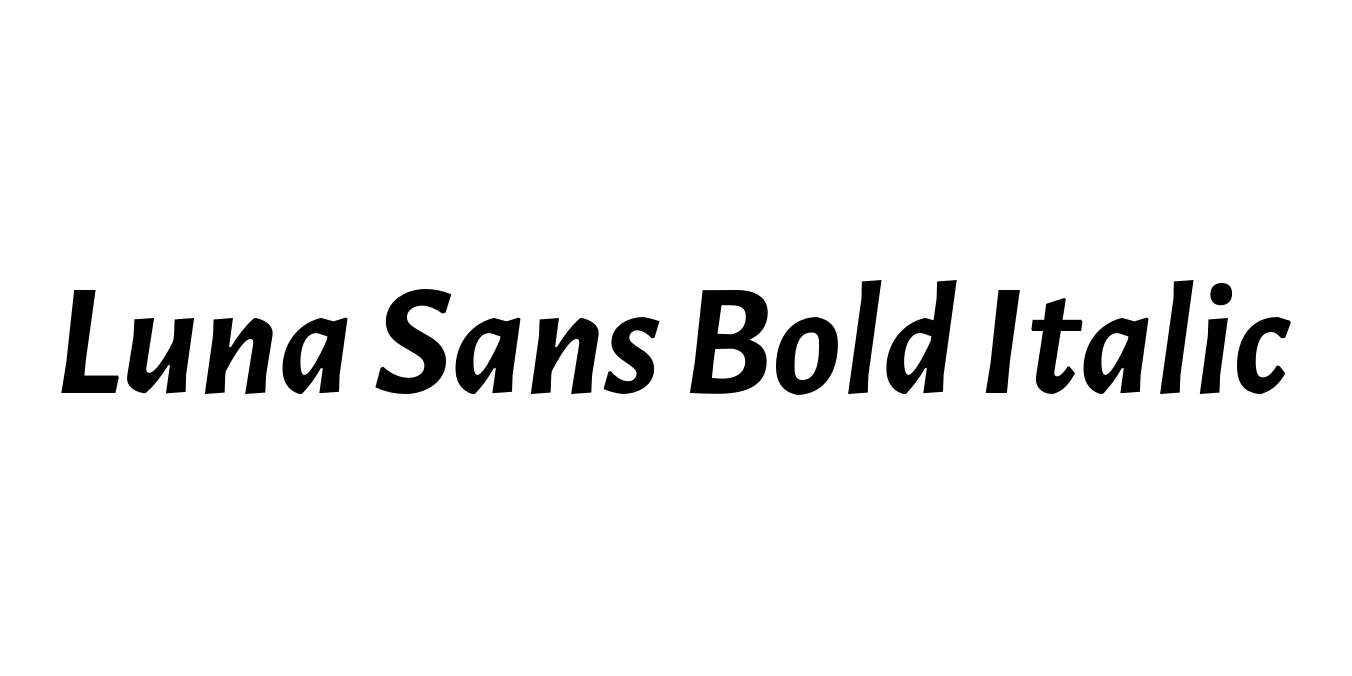
Luna Sans Bold Italic
Designed by Amanda de Lacerda
Luna Sans Bold Italic is a sophisticated geometric sans-serif typeface that bridges the gap between modern minimalism and functional clarity. Designed as part of the broader Luna family, this specific weight and style was crafted to provide designers with a tool for creating high-impact visual hierarchies. The bold italic variation is particularly noted for its sleek, forward-leaning stance that conveys a sense of momentum and confidence, making it a favorite for contemporary digital environments.
Technically, Luna Sans is characterized by its balanced x-height and open apertures, which ensure maximum legibility even at smaller display sizes. The bold italic weight manages to maintain these clean proportions while adding a layer of emphasis and urgency. It is frequently utilized in high-end branding, editorial layouts, and advertising campaigns where a professional yet approachable tone is required to capture the audience's attention effectively.
Luna Sans Bold Italic Best Uses
Perfect for high-impact titles and section headers that require emphasis.
Ideal for creating strong, modern corporate identities and logos.
Great for promotional banners and social media graphics that need to stand out.
Useful for callouts, quotes, and sidebar text in magazine layouts.